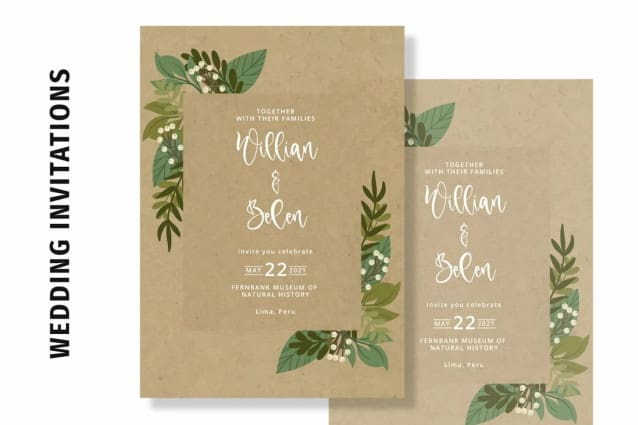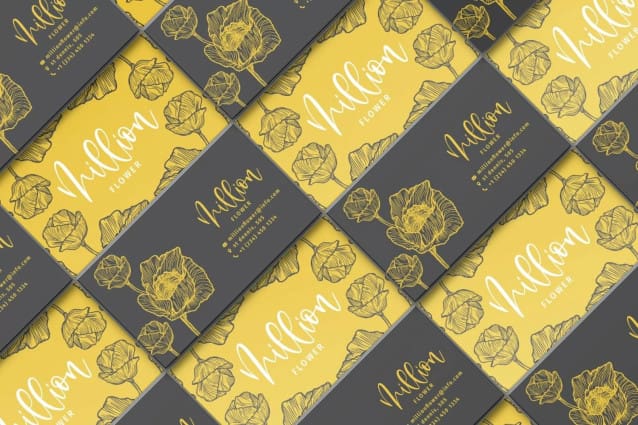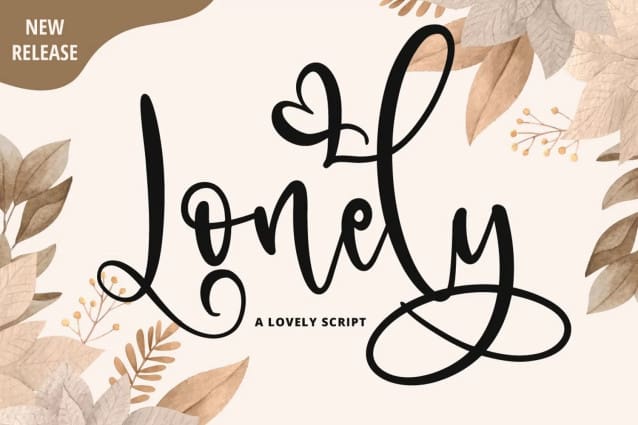
Lonely Lovely Script Font
Lonely Lovely Script Font, is a modern handwritten font, carefully handcrafted to become a true favorite. Its casual charm makes it appear wonderfully down-to-earth, readable and, ultimately, incredibly versatile . Lonely features a varying baseline, smooth lines, gorgeous glyphs and stunning alternates. very suitable for crafting design, silhouette, wedding, cutting, cricut projects .Add it to your most creative ideas and notice how it makes them come alive!